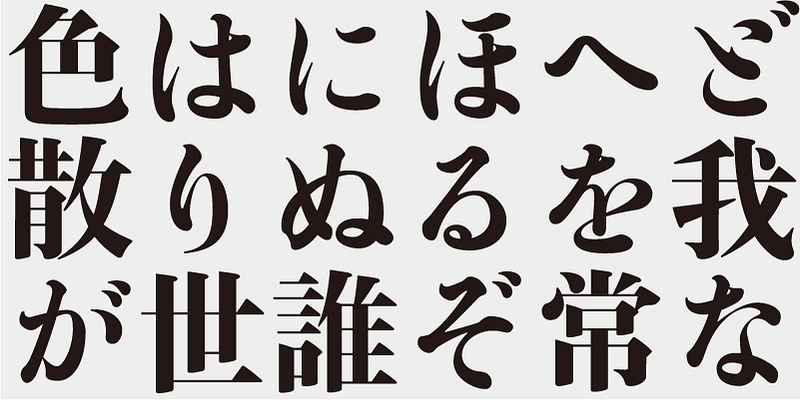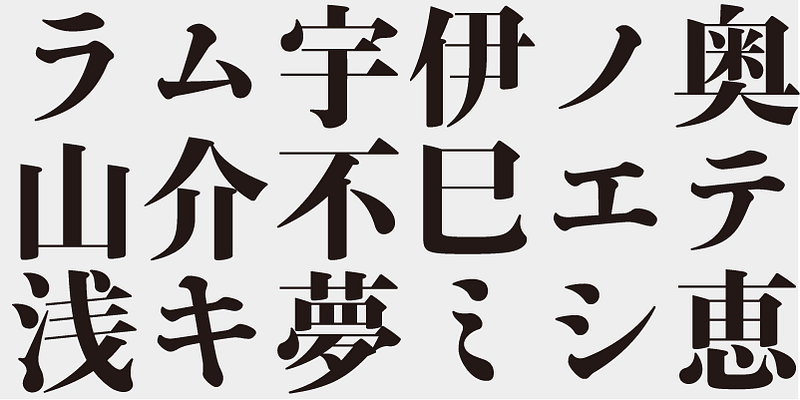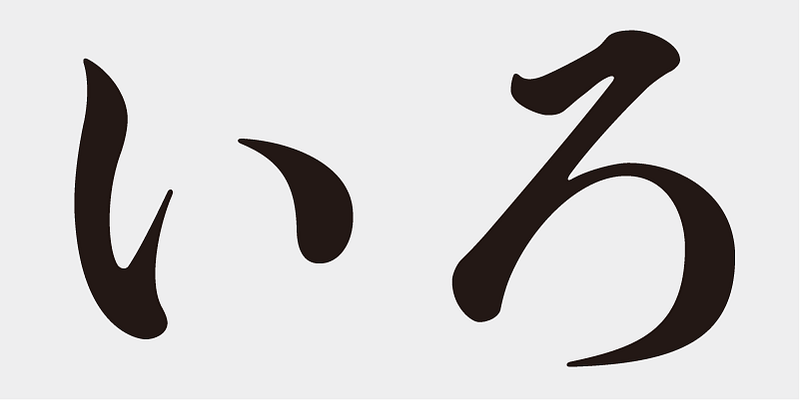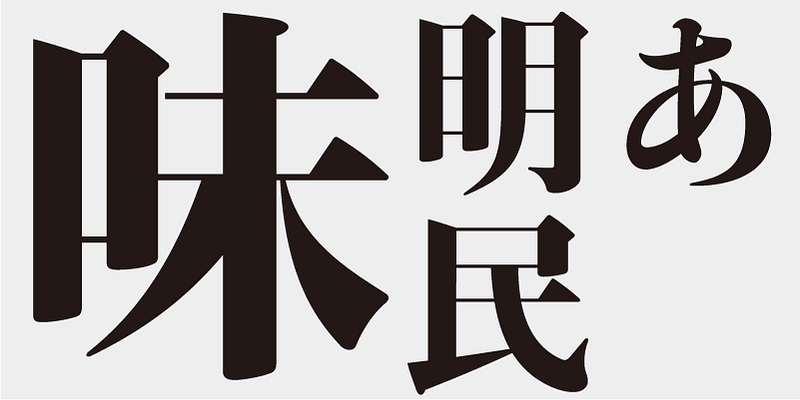
Although Ajimin has the flavor of hot metal type, it is not intended to be a revival, but a new typeface for display purposes. Like Bodoni, its vertical strokes are clear and heavy and its horizontal strokes are precise and thin. Its elements possess strength and stability.
Ajimin Modern’s elements are more sharply designed than those of Ajimin – the start and finish of vertical strokes are lowered for increased sharpness, and the horizontal strokes are cut vertically at the start and are thinner with a uniform width. Ajimin Modern is a sharp and elegant Mincho-style typeface.
This typeface is designed to be used in larger type sizes (for posters, for example), although it’s legible in smaller sizes. As the type size increases, the elegance of each stroke element becomes more visible.
The original form of Ajimin Min, “Shijuku Katsuji” in the size of Shogo, was introduced in Yasaburo Kuwayama’s book: Lettering Design (1969). He wrote, “This is one of the most popular typefaces being sold today, and many designers like to use this typeface for newspaper/magazine advertisement and titles for brochures. There are many typefaces that closely resemble this design.”
Keinosuke Sato’s book Hiragana (I) referred to this typeface as “Tokubuto-Mincho-tai Midashi-yo Shogo of Kinsei-sha”. And it was released as “Minyu Mincho” by Shaken, who wrote of their version: “A typeface in the direct line of that of the Tokyo Tsukiji Type Foundry has been reproduced as a phototypesetting font under the name of Minyu-sha.”
Ajimin Modern Min/EB is a revival based mainly on Shijuku Katsuji.
Ajimin has the flavor of hot metal type and, like Bodoni, its vertical strokes are clear and heavy and its horizontal strokes are precise and thin. Its elements possess strength and stability. Ajimin is a unique Mincho-style display typeface. Ajimin Modern’s elements are more sharply designed, but that sharpness is balanced by the richness and elegance of the design. Ajimin’s biggest feature is its 10 kana variations, ranging from running-hand-like designs, to revivals of designs from the age of hot metal type, to modern style kana. These variations make Ajimin useful for a wide range of purposes.